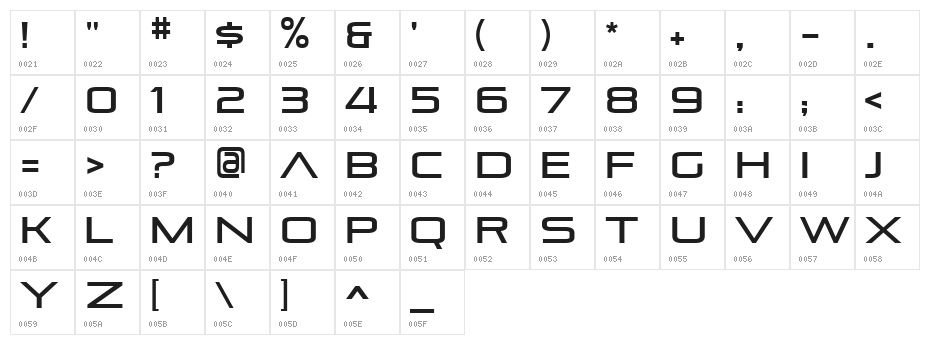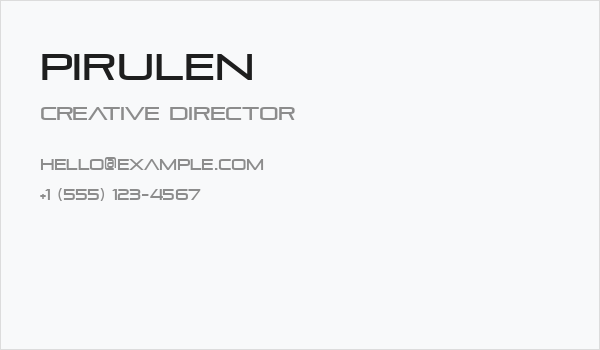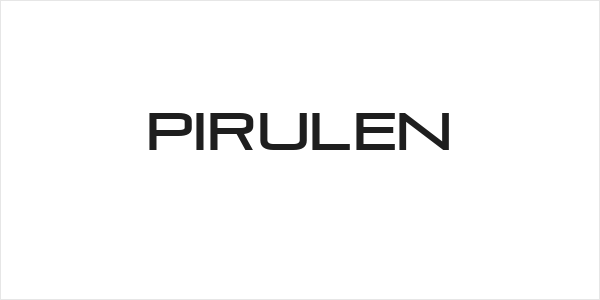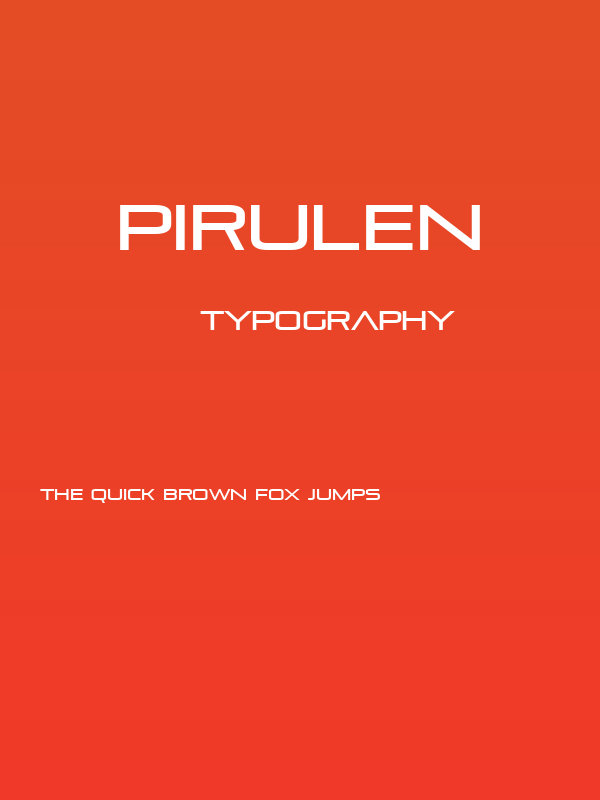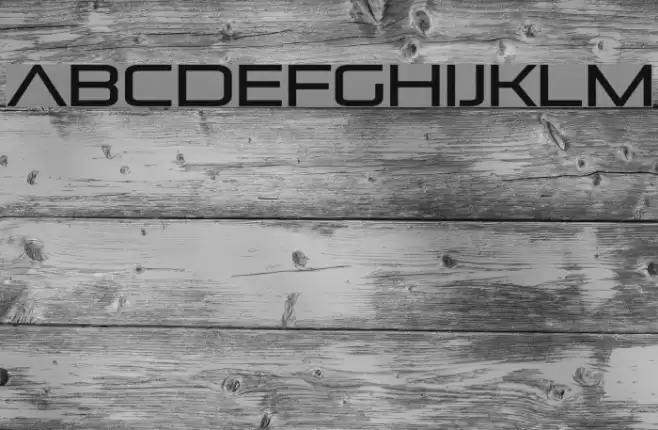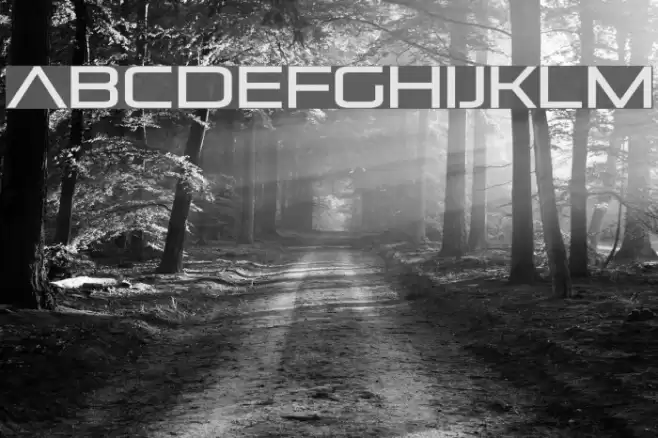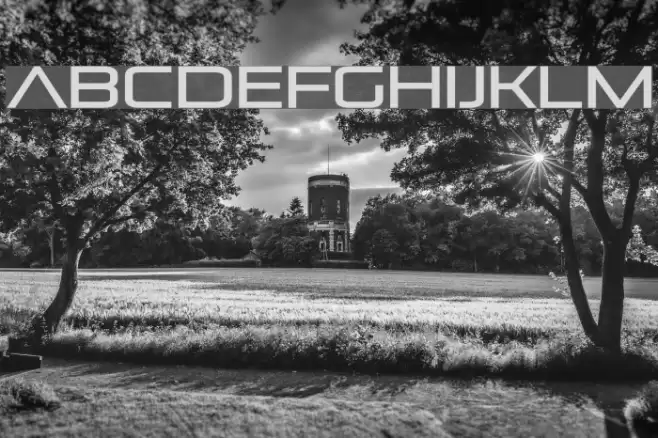
Pirulen Font
Pirulen Description
This font features a futuristic and geometric design, characterized by its clean lines and angular shapes. The uppercase letters are bold and uniform, with a consistent height and width that creates a balanced appearance. The lowercase letters maintain the same geometric style, offering a cohesive look across different text cases. The numerals are distinct and easily readable, matching the overall aesthetic of the font. Special characters are designed with the same attention to detail, ensuring they integrate seamlessly with the rest of the character set. This font's modern and sleek design makes it suitable for a variety of digital and print applications.
| Use Case | Headlines, Logos, Digital interfaces |
| Proposed Projects | Ideal for tech branding, sci-fi themed projects, digital interfaces, and modern advertising. |